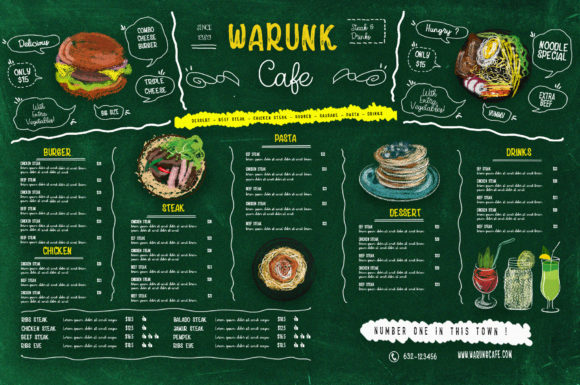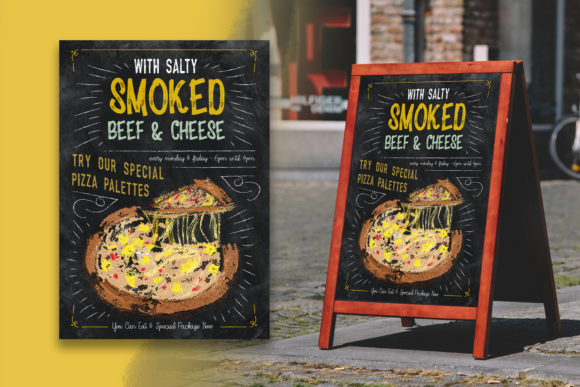
Hungry Chalk Font
db-ku.com - Script & Handwritten -- The Hungry Chalk is a striking script font. It comes in three styles, which makes it perfect for creating multiple unique designs.